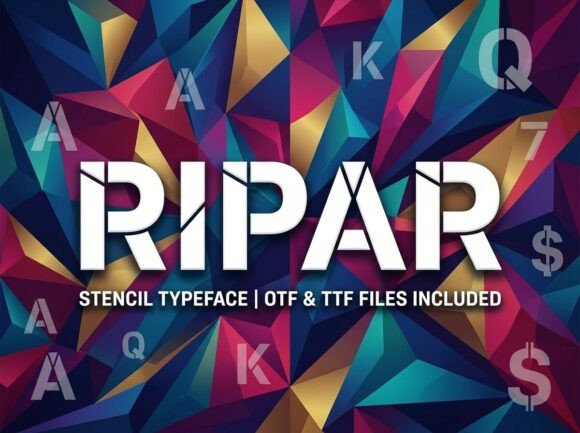
Introduction to Ripar Font
Have you ever been working on a creative project, staring at a blank page or screen, and suddenly, the perfect font appears in your mind? That’s exactly what happened to many designers when they laid eyes on the stunning Ripar Font. This beautiful display font is a game-changer, elevating any design from ordinary to extraordinary.
As a valuable design resource, Ripar Font offers a unique combination of artistic elements and a strong visual personality. With its transparent background and high-quality design, it’s perfect for creating bold headlines, artistic logos, and creative packaging that demand attention. Whether you’re working on a personal project or a commercial design, Ripar Font is a must-have for any designer looking to add a touch of sophistication and elegance to their work.
Key Features of Ripar Font
- High-quality, professional design suitable for creative projects and presentations.
- Comes with a transparent background, allowing for seamless integration into various design environments.
- Features a large character set, including a wide range of languages and symbols, making it a versatile design resource.
Honest Review: Ripar Font
I recently stumbled upon the Ripar Font, a free download that has caught my attention as a valuable design resource. Its unique style and high quality make it perfect for any creative project.
- ✨ Transparent background: The font’s transparent background is a game-changer for designers. It allows for seamless integration into any design, making it a versatile choice for various projects.
- ✨ High quality: The Ripar Font is crafted with attention to detail, ensuring a professional look that’s hard to find in free fonts.
- ⚠️ Limited character set: The font’s character set is limited, which may not be suitable for projects requiring a wide range of characters.
- ⚠️ Not suitable for large-scale projects: While the font is high quality, it may not be the best choice for large-scale projects due to its limited availability and potential licensing issues.
Overall, the Ripar Font is a great addition to any designer’s toolkit. Its unique style and high quality make it perfect for creative projects, and its free download makes it an attractive choice for designers on a budget. However, designers should be aware of its limitations before using it for larger projects.